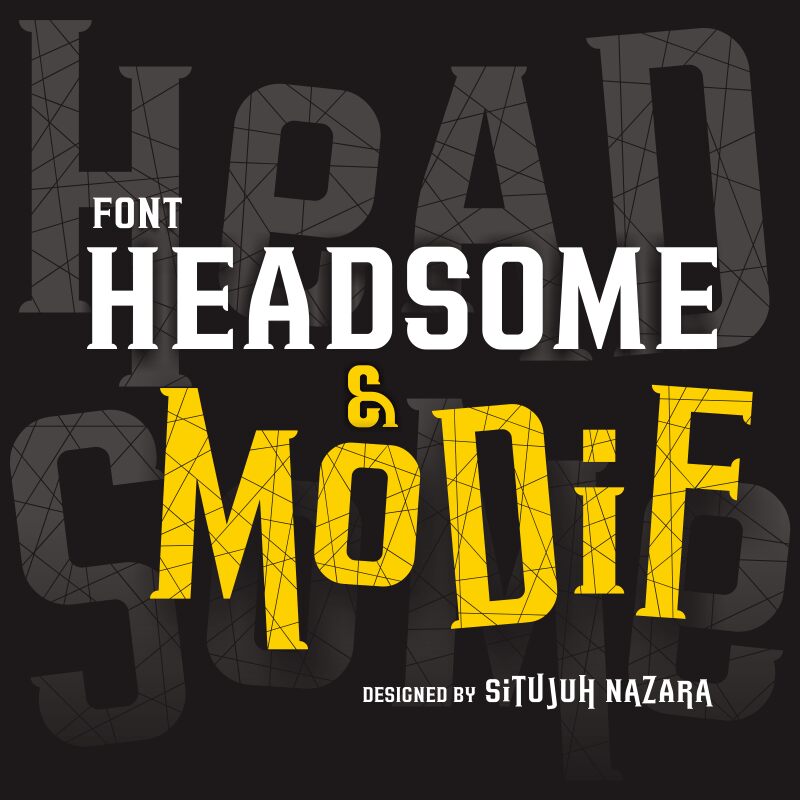
HEADSOME & modif Cut1
Situjuh Nazaea
Headsome and Modif is a font designed for strong headline and creative design works. The lowercase is the modification of the uppercase. Enjoy!
SchriftklasseModerne Serifen